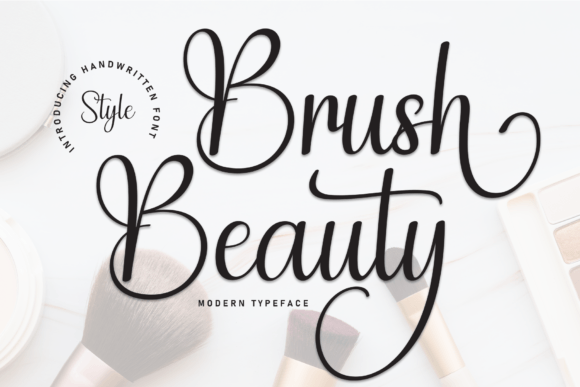
Unleashing Whimsy: The Brush Beauty Font Story
Have you ever been in the middle of a design project, pouring your heart and soul into it, only to hit a roadblock when it comes to finding the perfect font? I certainly have. It was a sunny Saturday morning when I received an urgent message from a client needing a quaint wedding invitation design, and I was still scrambling to find a font that captured the warmth and playfulness they desired. That’s when I stumbled upon the Brush Beauty Font, and it was love at first sight! ✨
- ✅ Warm and delightful handwritten feel that instantly adds charm to any design
- ✨ Crisp and playful twist that’s perfect for designs aiming to captivate hearts
- 💕 Versatile and suitable for a wide range of projects, from wedding invitations to lively cards
- 🎉 Easy to read and understand, making it perfect for conveying heartfelt messages
While Brush Beauty Font is a stunning addition to any design project, there are a few things to keep in mind: 🤔
- ⚠️ Some letters may appear a tad too ‘connected’ for certain design contexts, requiring manual adjustment
- ⚠️ Limited availability of Cyrillic or non-English characters, which might be a concern for multilingual projects
The Brush Beauty Font was crafted with love by a talented designer who wanted to create a typeface that would bring joy and whimsy to everyday designs. With a passion for handwriting and lettering, the designer poured their heart into creating a font that would feel both personal and approachable. The result is a font that’s equal parts elegant and playful, perfect for designers looking to add a touch of warmth to their work.
Q: Is Brush Beauty Font suitable for body text?
A: While Brush Beauty Font is beautiful, it’s best suited for headings and short paragraphs. For longer body text, consider a more traditional font for readability.